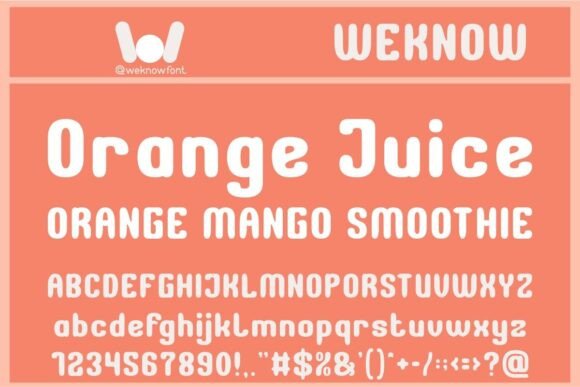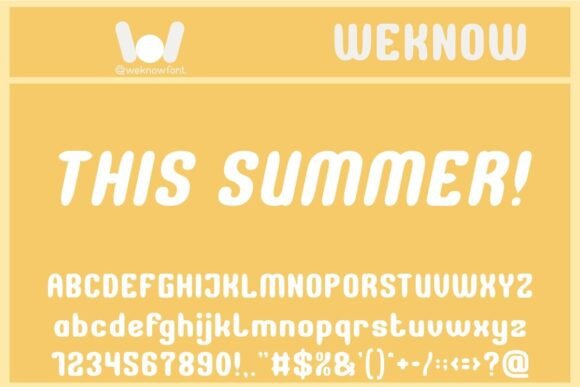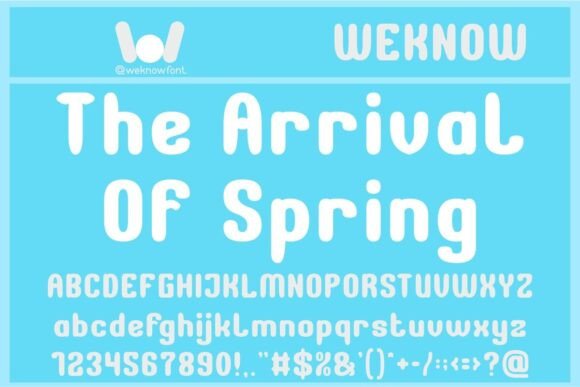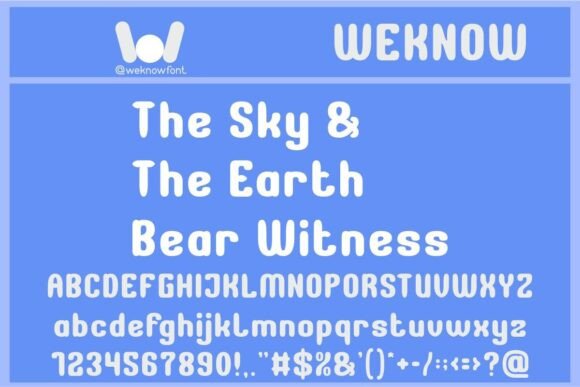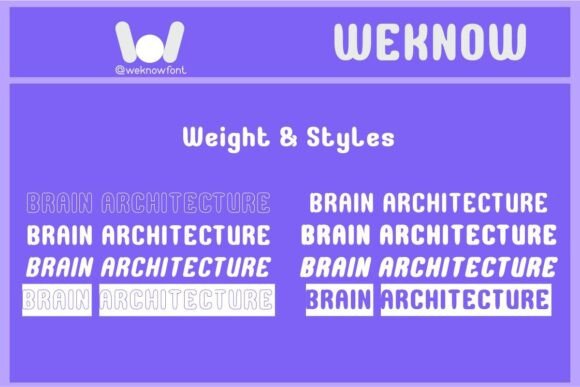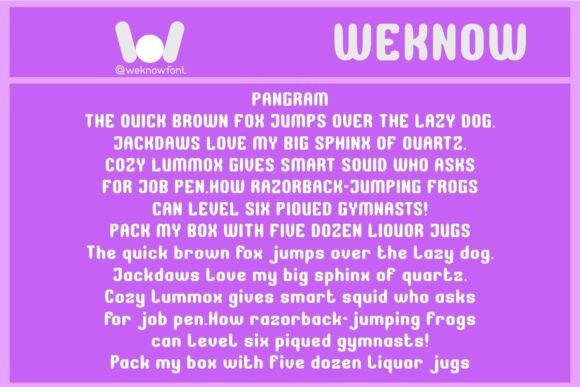
Brain Architecture Font: A Delightful Blend of Whimsy and Sophistication
In the world of typography, a font can make all the difference in capturing the essence of a brand, product, or creative project. Introducing Brain Architecture, a sans-serif font that seamlessly blends whimsical cartoon imagery with aero-smooth sophistication. This vibrant creation is primed for enhancing logos, corporate and brand identities, and infusing a touch of playful charm into various designs.
Key Features of Brain Architecture Font
• Whimsical yet Sophisticated: Brain Architecture boasts a unique blend of playful, cartoon-inspired elements and smooth, aerodynamic lines, making it perfect for a wide range of applications.
• Versatile and Adaptable: This font is designed to excel in various contexts, from logos and branding to apparel, headlines, posters, and digital content.
• Engaging and Memorable: Brain Architecture’s distinctive style ensures that your projects will stand out, leaving a lasting impression on your audience.
Brain Architecture is an excellent choice for designers and crafters looking to add a touch of personality to their work. Its pleasing balance of fun and style makes it an ideal font for:
• Logos and Branding: Establish a strong visual identity for your company or product with a font that’s both modern and approachable.
• Apparel Designs: Add a playful twist to your clothing and accessory designs, making them perfect for fashion brands, t-shirts, hats, and more.
• Headlines and Posters: Grab attention with bold, eye-catching headlines and posters that showcase Brain Architecture’s unique charm.
• Digital Content: Elevate your YouTube, Instagram, or website content with a font that’s optimized for digital platforms.
Enhance Your Storytelling with Brain Architecture
Whether you’re a publisher, author, or comic book artist, Brain Architecture can help bring your story to life. This versatile display font is perfect for:
• Magazines and Books: Transform the pages of your publication with a font that’s both engaging and easy to read.
• Comic Books and Graphic Novels: Add a touch of playfulness and energy to your comic book designs, making them more appealing to readers.
• Music, Movie, and Game Campaigns: Create eye-catching promotional materials that showcase Brain Architecture’s unique style.
Why Choose Brain Architecture Font?
In a digital landscape where typography plays a crucial role in capturing attention, Brain Architecture offers a unique combination of style, versatility, and personality. By choosing this font, you’ll be able to:
• Stand out from the crowd: Brain Architecture’s distinctive style ensures that your projects will be noticed and remembered.
• Convey your brand’s personality: This font’s playful yet sophisticated design makes it perfect for brands looking to establish a strong visual identity.
• Enhance user engagement: Brain Architecture’s engaging and memorable style can help increase user interaction and conversion rates.
Brain Architecture Font is an exceptional choice for designers and crafters looking to add a touch of whimsy and sophistication to their projects. With its versatile design, engaging style, and wide range of applications, this font is sure to become a staple in your typography collection. So why wait? Unlock the full potential of Brain Architecture and take your creative projects to the next level!